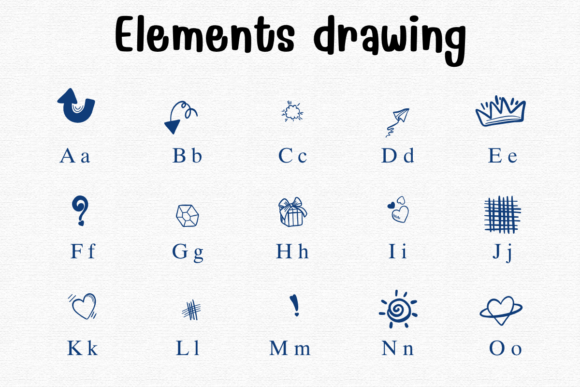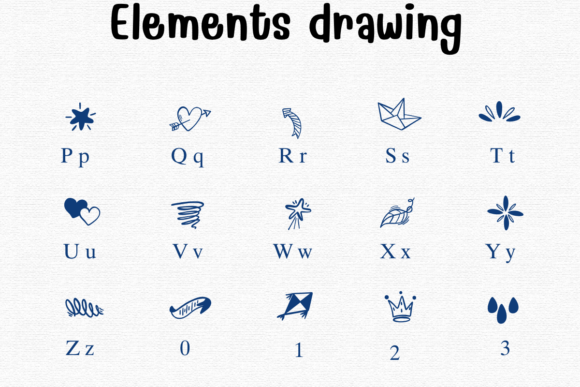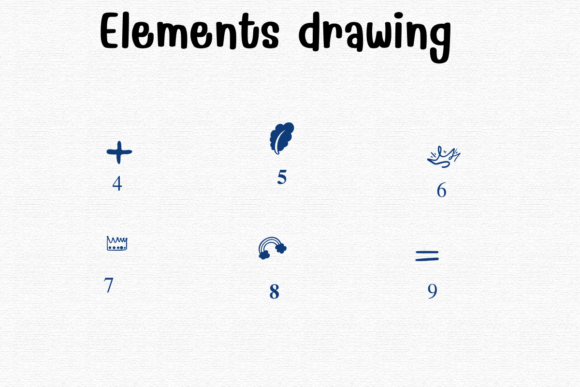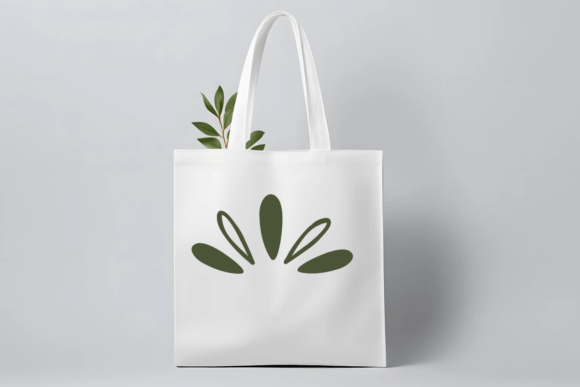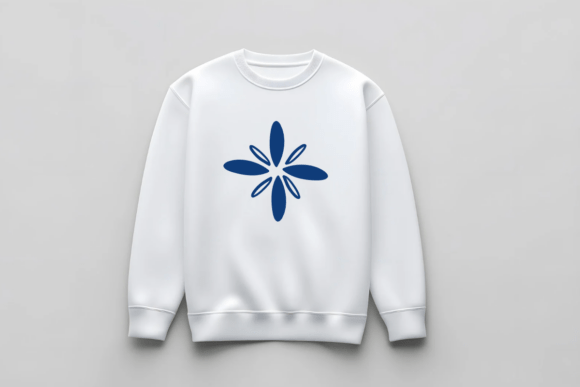
Introduction to Elements Drawing Font
Have you ever been working on a creative project and suddenly needed to add a dash of personality to your design? You know, that moment when you’re scrolling through Pinterest boards, Instagram feeds, or design blogs, and you stumble upon a font or a graphic element that just makes everything click? For designers like us, this moment is a game-changer.
That’s exactly what Elements Drawing Font offers – a world of high-quality, expressive symbols and graphic elements that can elevate your design projects in an instant. With this versatile and free download font, you can add a touch of whimsy, emphasis, or even a sketch-like aesthetic to your work. Whether you’re working on social media posts, presentation slides, or modern branding, Elements Drawing Font is the perfect design resource to take your creative project to the next level.
Key Features of Elements Drawing Font
- High-quality, professional vector illustrations for creative projects.
- Transparent background option, allowing for easy integration with different backgrounds and designs.
- Comprehensive collection of illustrations, including various elements, icons, and graphics.
Honest Review: Elements Drawing Font
I recently came across the Elements Drawing Font, and I must say, it’s a great addition to any designer’s toolkit. This free download is perfect for any creative project that requires a unique and eye-catching font.
- High-quality glyphs that are both modern and sleek
- Transparent background, making it easy to use on any background
- Works well in both digital and print projects
- Comes in a range of weights and styles to suit your design needs
- ⚠️ Limited language support, which may not be ideal for international projects
- ⚠️ Not all glyphs are compatible with certain design software
Overall, I’m impressed with the Elements Drawing Font. It’s a great design resource that can add a touch of elegance to any project. While it may not be perfect, its benefits far outweigh its limitations.
Elements Drawing Font
The Elements Drawing Font is a high-quality, free download design resource that can elevate your creative project. With its unique style and transparent background, this font is perfect for designers looking for a versatile design element.
The Elements Drawing Font is perfect for:
- Graphic design projects